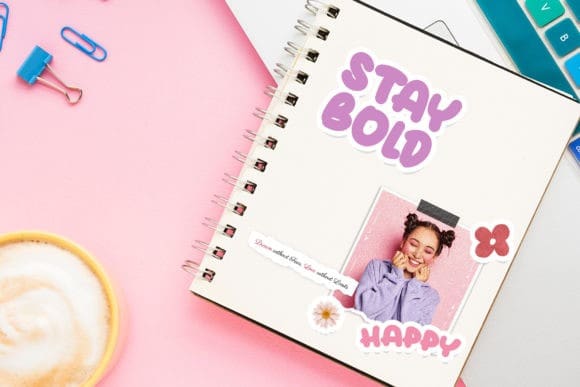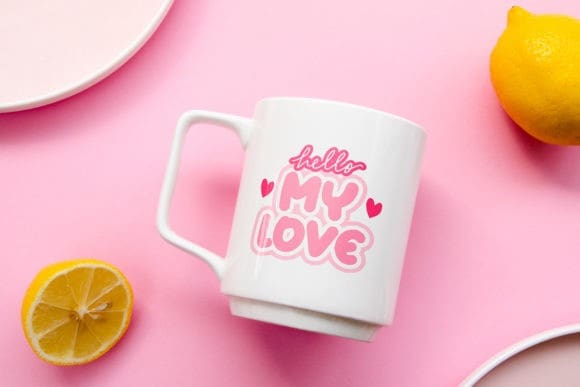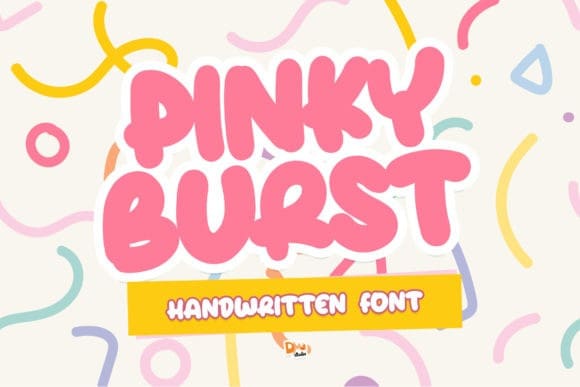
Pinky Burst Font
Pinky Burst Font, Bold and playful, a fun handwritten font: Pinky Burst! Make your design more awesome and stunning using this font. Build your own stickers, printing, crafts, and much more!